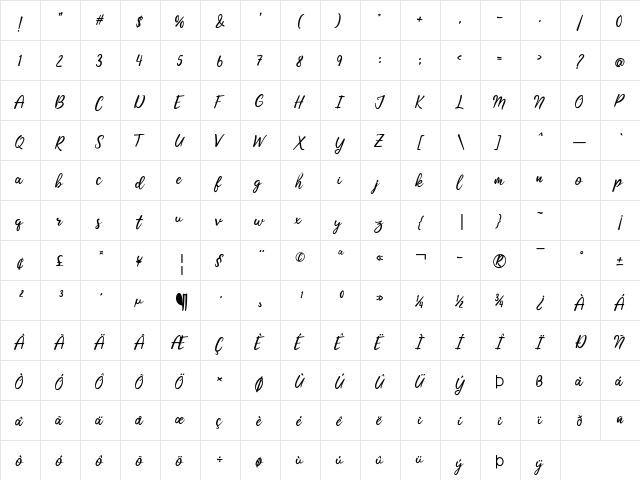
Belattis Regular
Design Context for Belattis Typeface
Belattis is a composed and adaptable typeface that performs quietly and consistently across a wide range of design contexts.